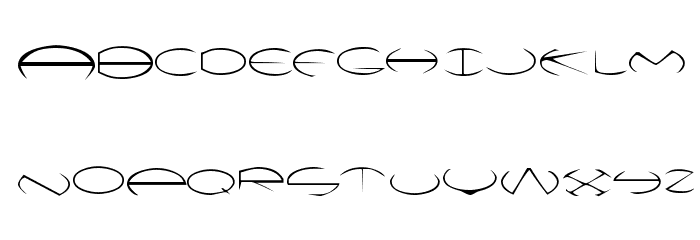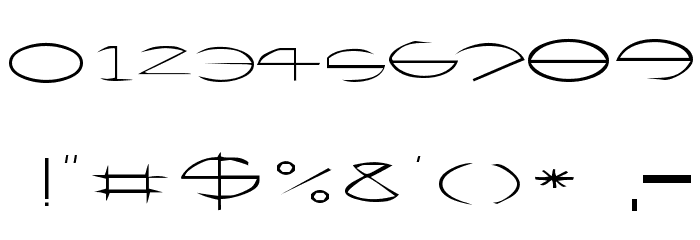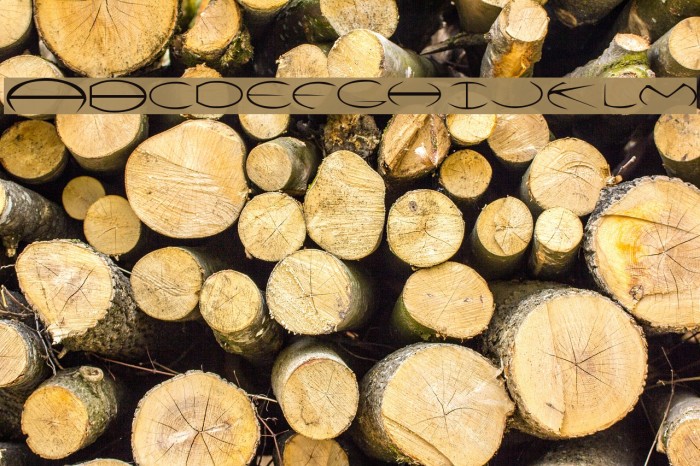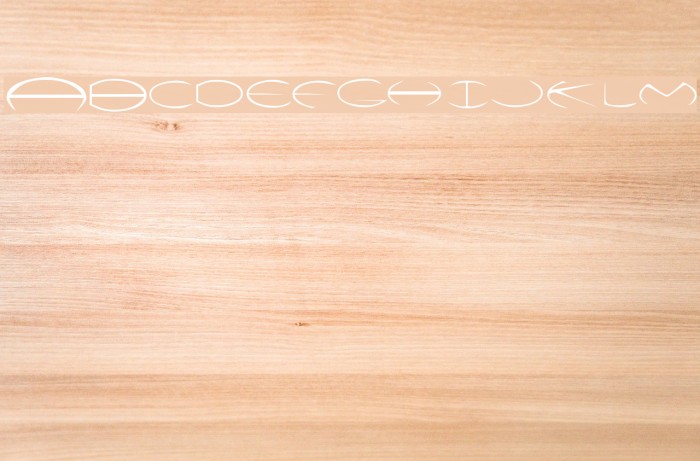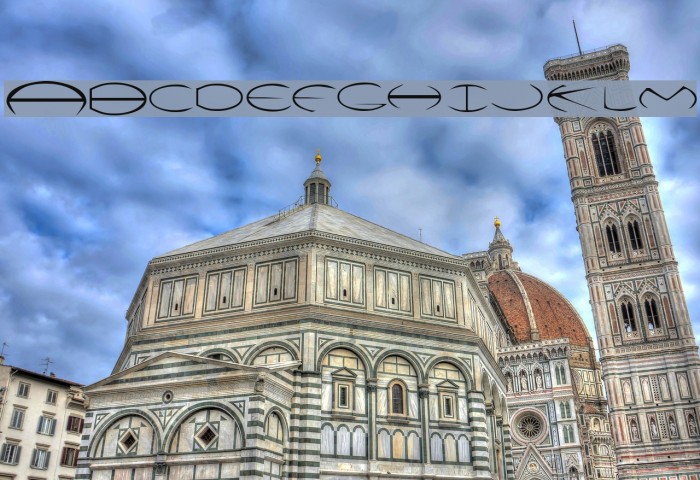
Victor Font
This font features a futuristic and geometric design, characterized by its sharp angles and sleek curves. The uppercase letters are distinct with elongated forms and unique cutouts that give a sense of movement and modernity. The lowercase letters maintain a consistent style, offering a harmonious blend with the uppercase. Numbers and special characters follow the same design principles, ensuring uniformity across all glyphs. The overall aesthetic is bold and eye-catching, making it suitable for projects that require a modern and innovative look.
A futuristic and geometric font with sharp angles and sleek curves.
- Proposed Projects: Ideal for sci-fi themed designs, technology branding, modern posters, and innovative product packaging.